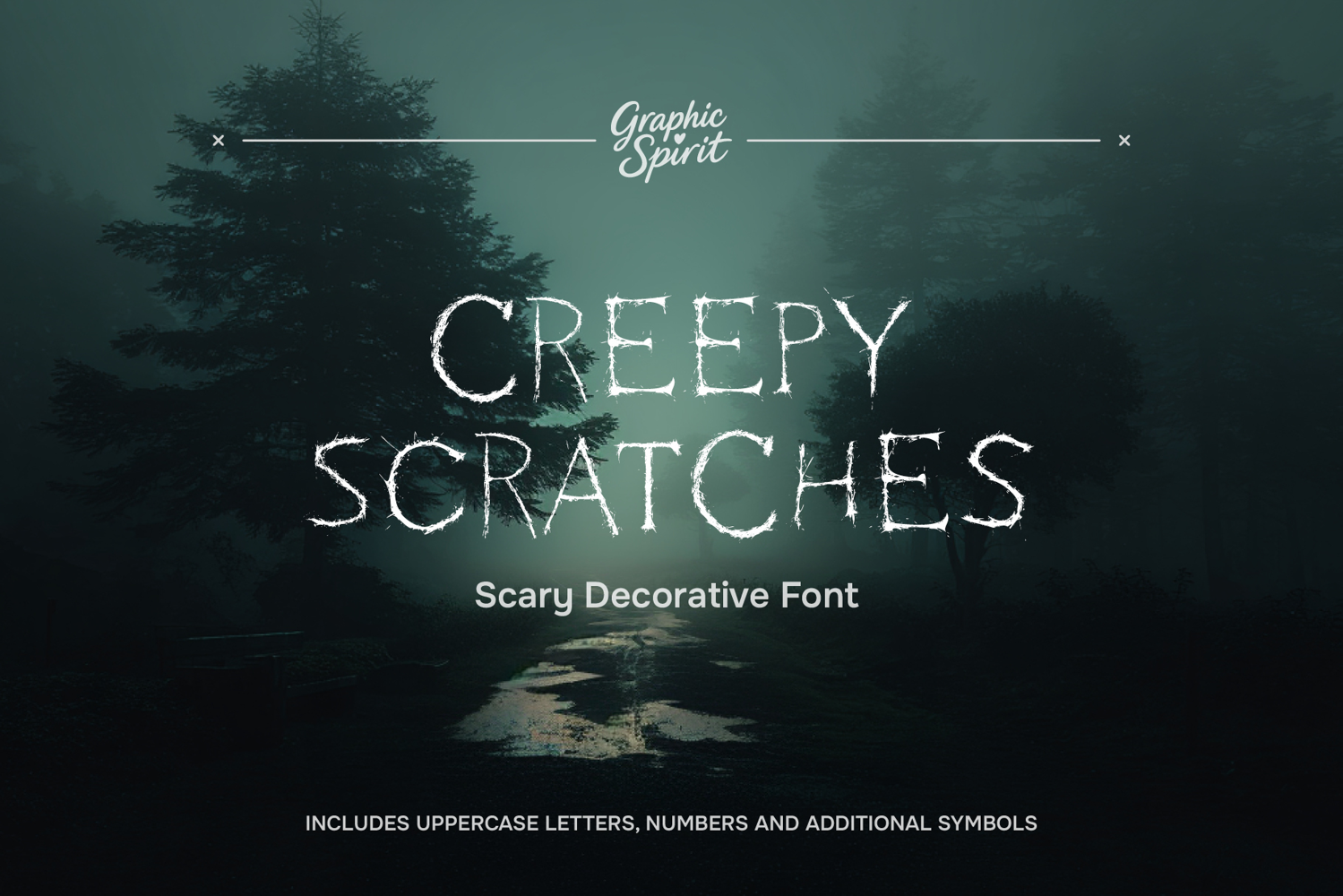
Creepy Scratches Scary Decorative Font
🕷️ Instantly conjure an aura of eerie mystery with Creepy Scratches! This uniquely terrifying decorative font features jagged, uneven letterforms that look like they were desperately clawed into a surface. Perfect for horror projects, Halloween party invites, mysterious book titles, or any design that needs a serious chill. It will make your audience look twice!